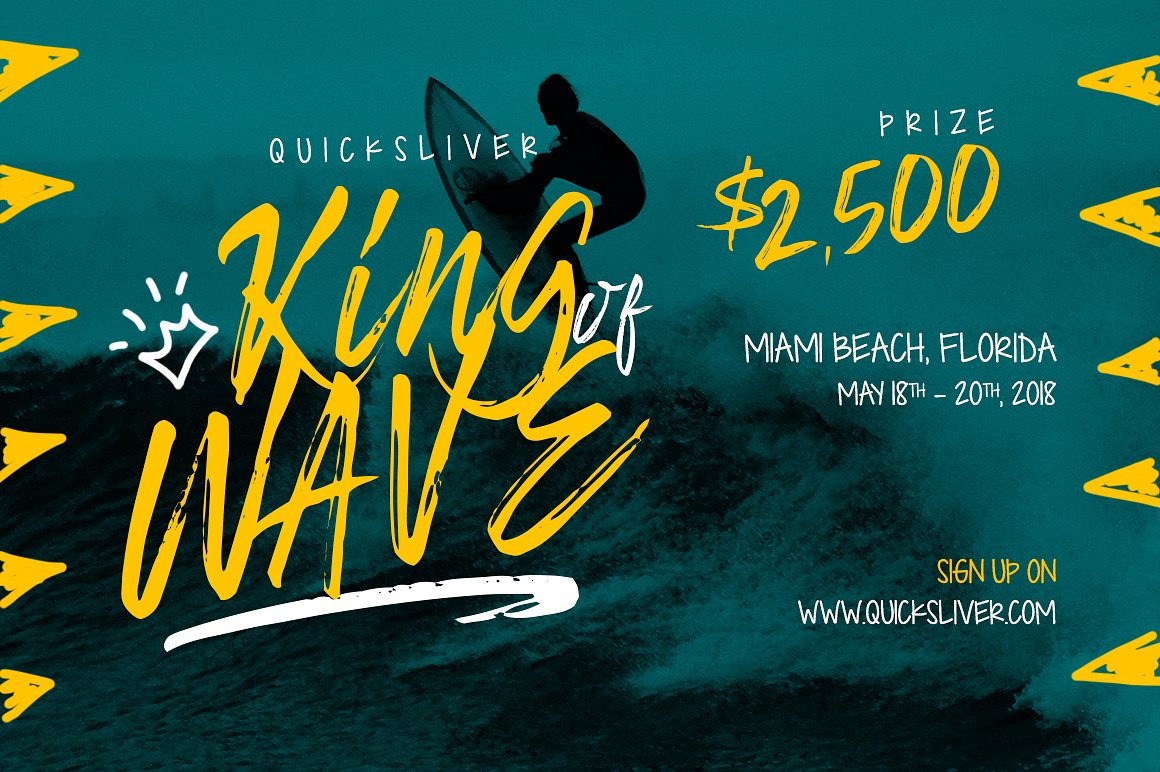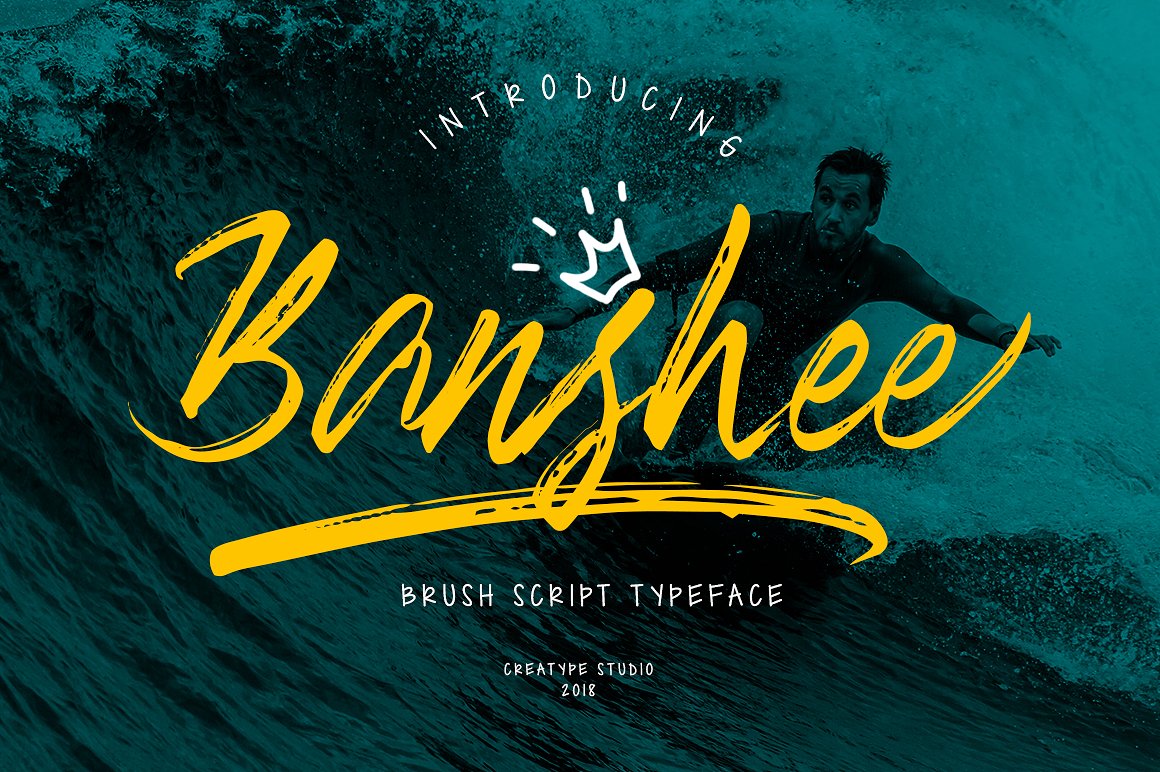
Banshee Script
Banshee Script Font
Introducing Banshee – A dry brush script font made from natural flow scratch with signature style.This font will bring your latest project looked more bold, sophisticated and modern.